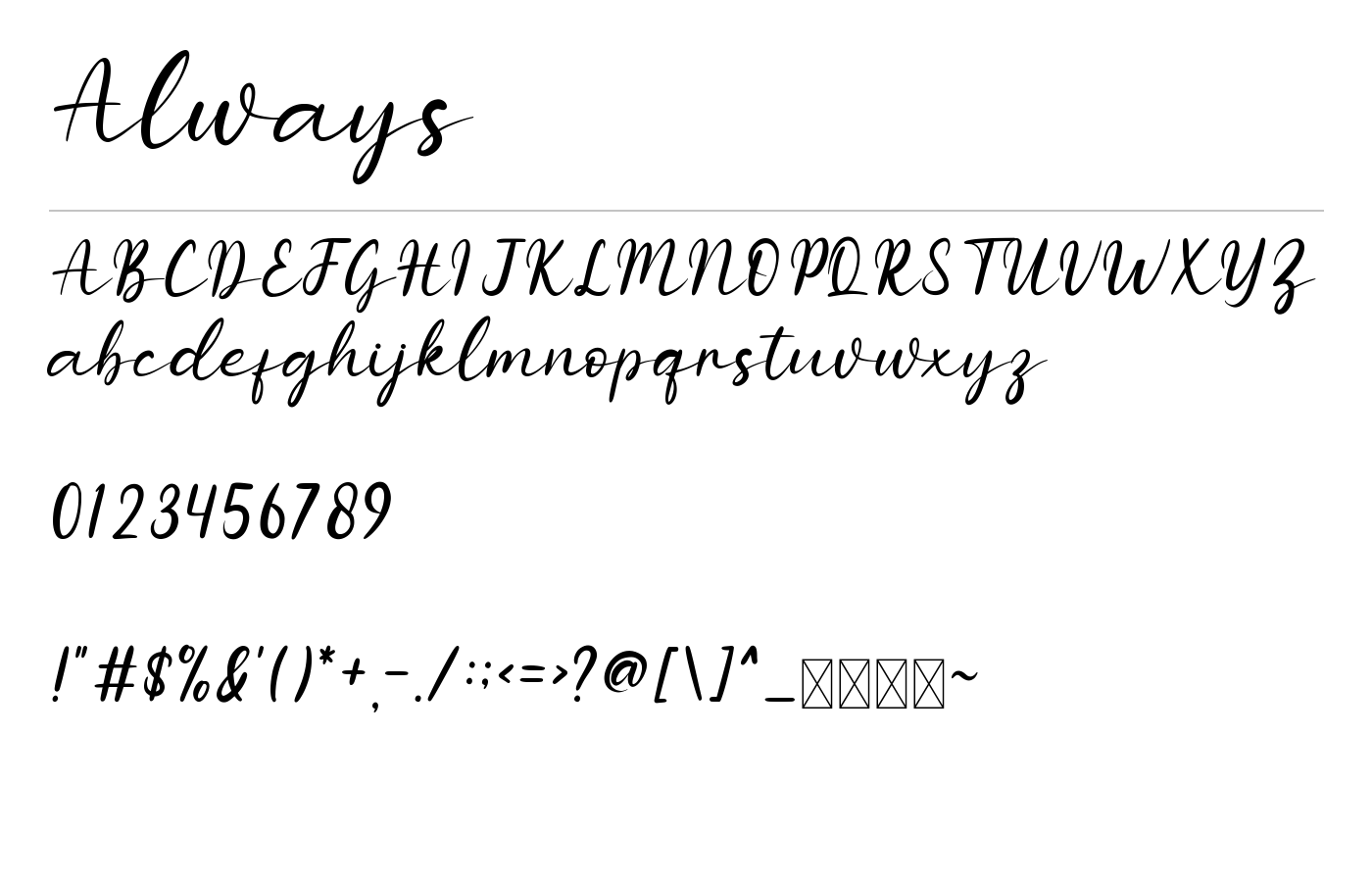
Always Font is an elegant, thin-script typeface with a handwritten, flowing style that feels personal and graceful. Its delicate strokes and moderate slant give it a natural, inviting look ideal for branding, invitations, and stylish editorial projects where a sophisticated yet approachable touch is desired. This font works well for designs that seek to convey warmth and refinement without sacrificing readability.
Always Font
About Always Font